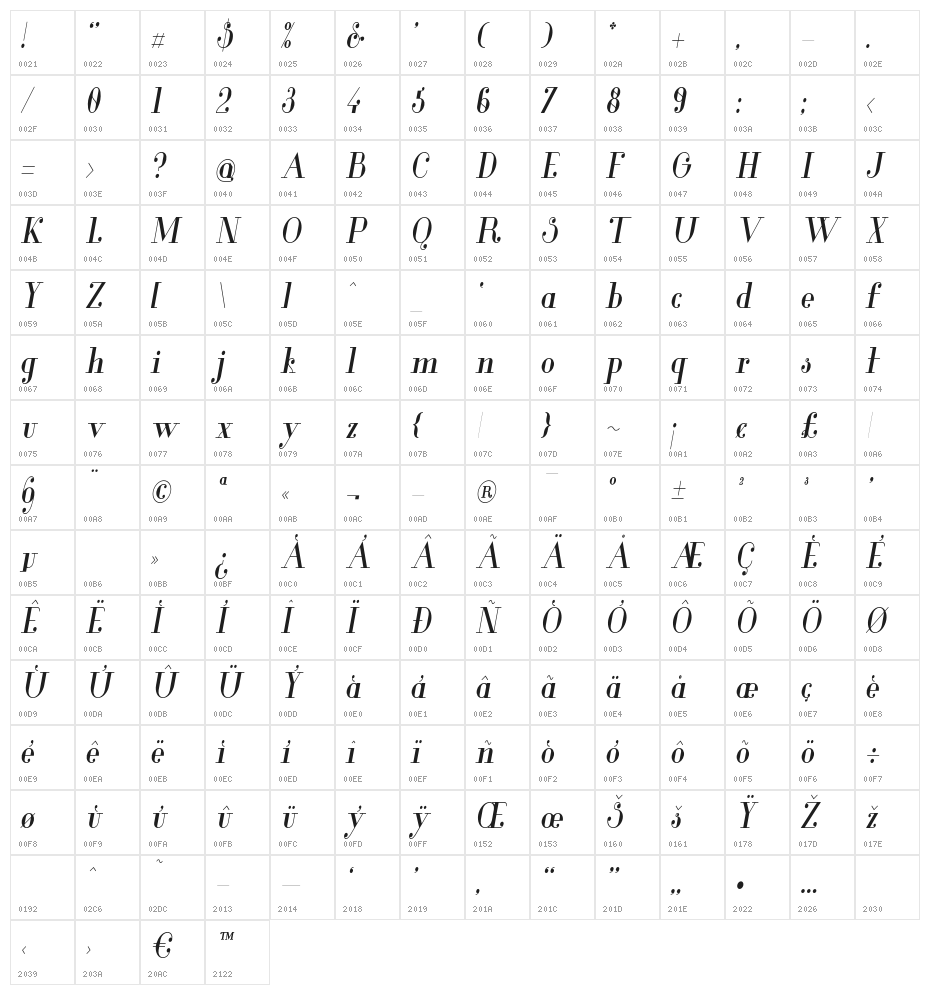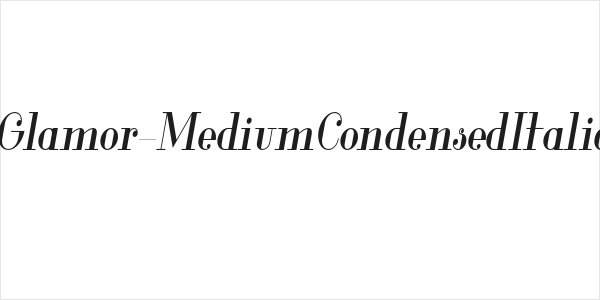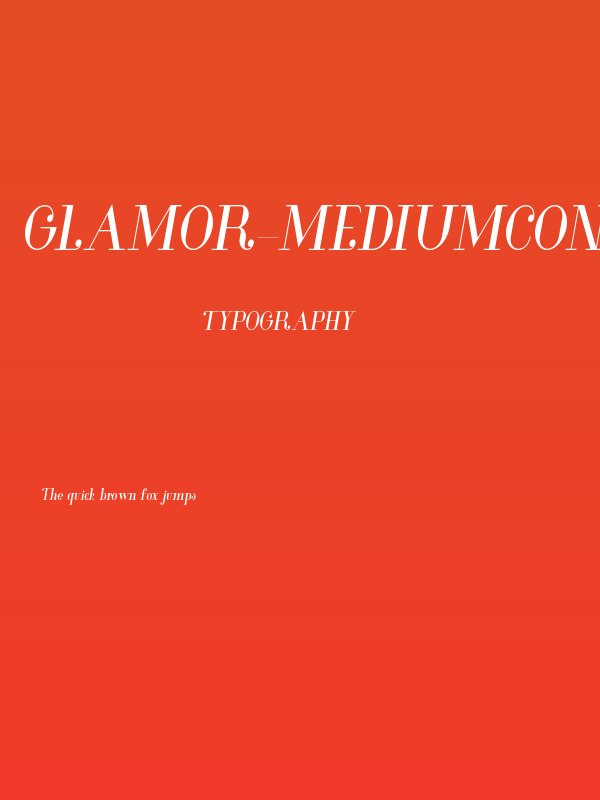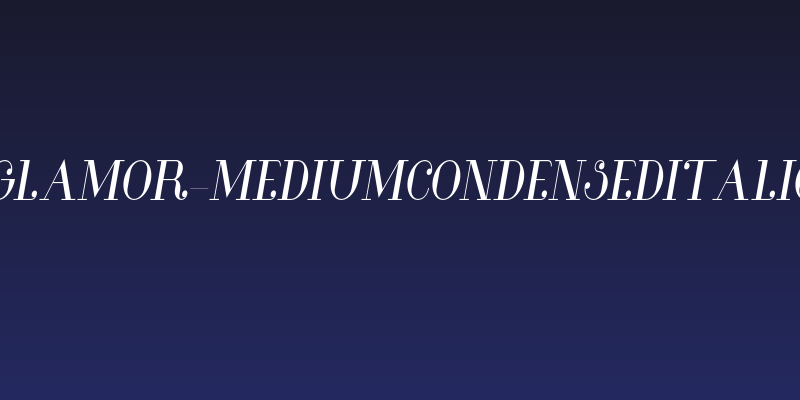
Glamor-MediumCondensedItalic Font
Glamor-MediumCondensedItalic Description
This font features an elegant and sophisticated style with a modern twist. The characters are slightly condensed, giving it a sleek appearance, while the italic slant adds a dynamic and flowing quality. The high contrast between thick and thin strokes enhances its refined look, making it suitable for upscale and stylish designs. The uppercase letters are tall and commanding, while the lowercase letters maintain a graceful and fluid form. The numerals and special characters are designed with the same attention to detail, ensuring consistency throughout the typeface.
| Overall Style | Elegant and sophisticated |
| Proposed Projects | Ideal for fashion magazines, luxury branding, wedding invitations, and high-end product packaging. |